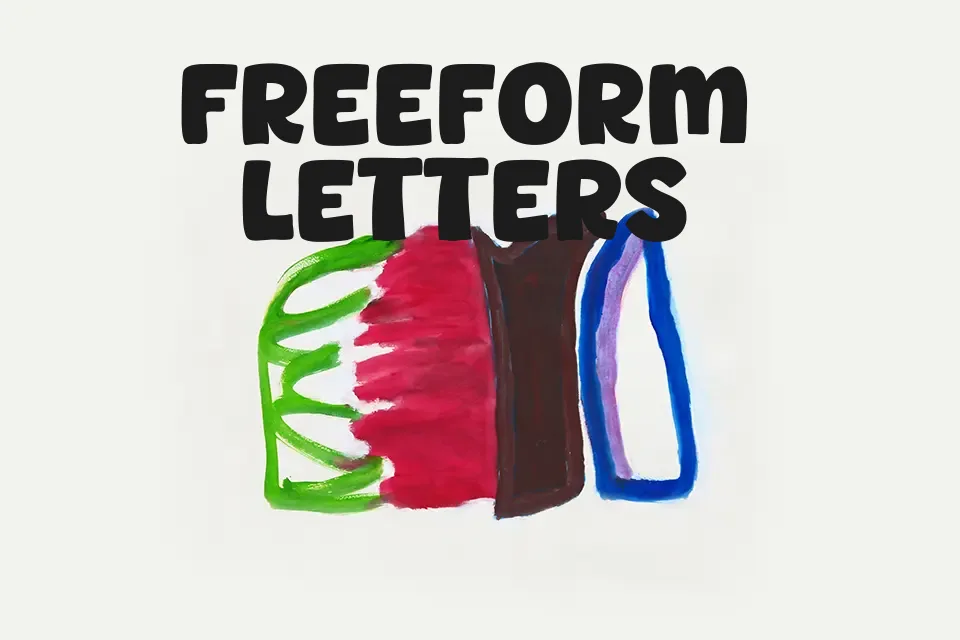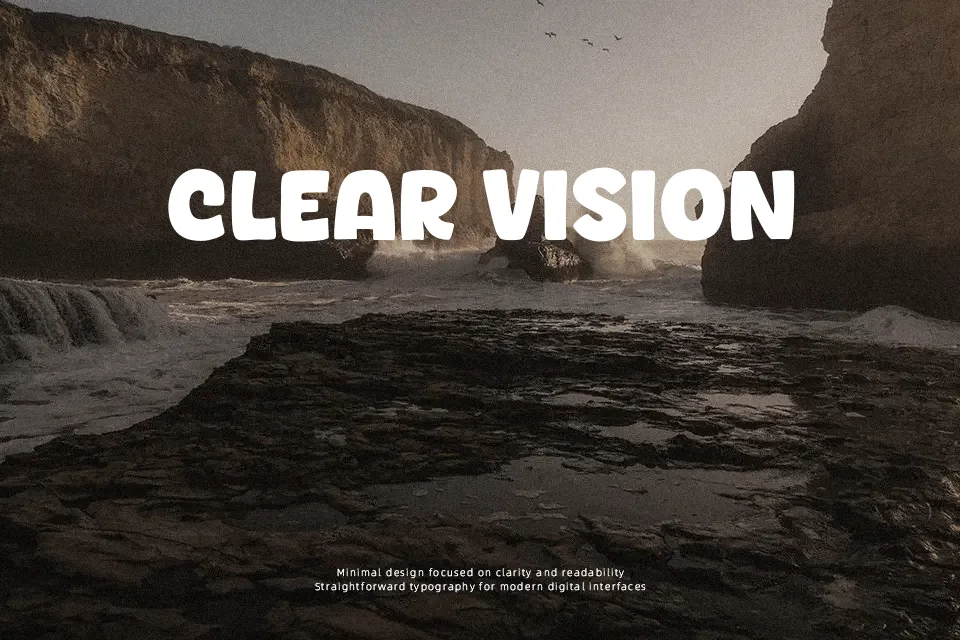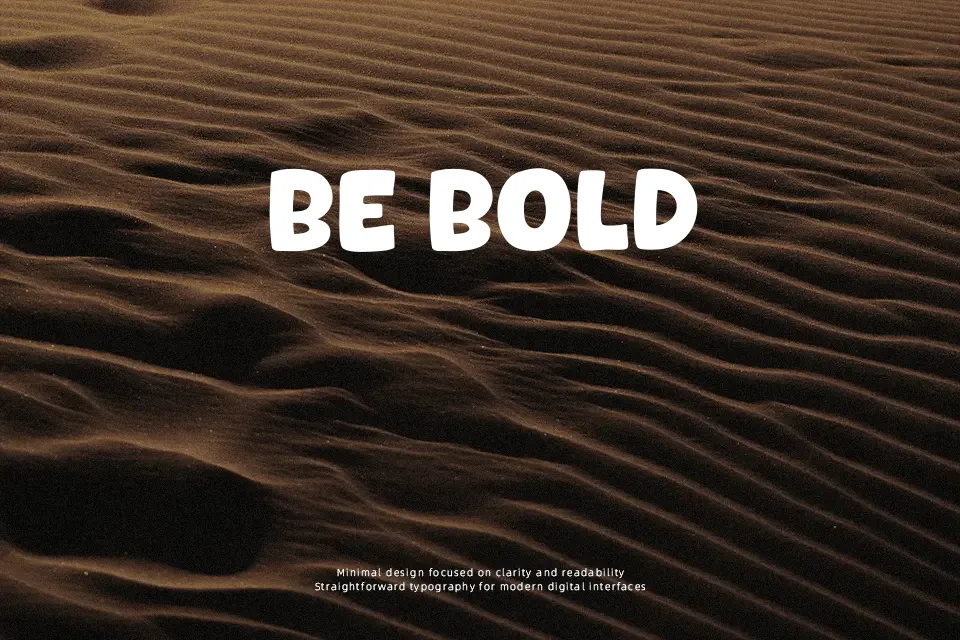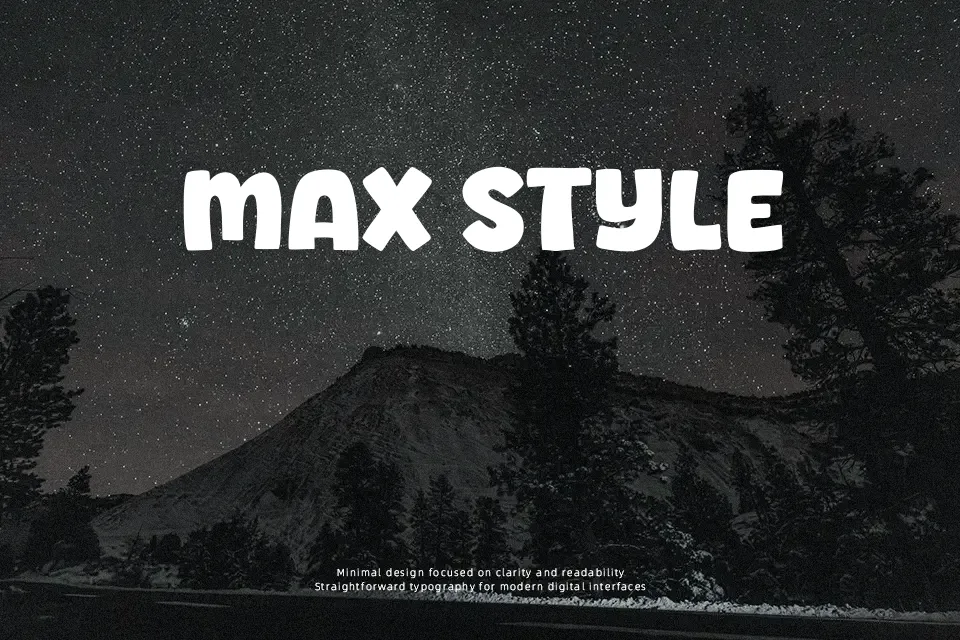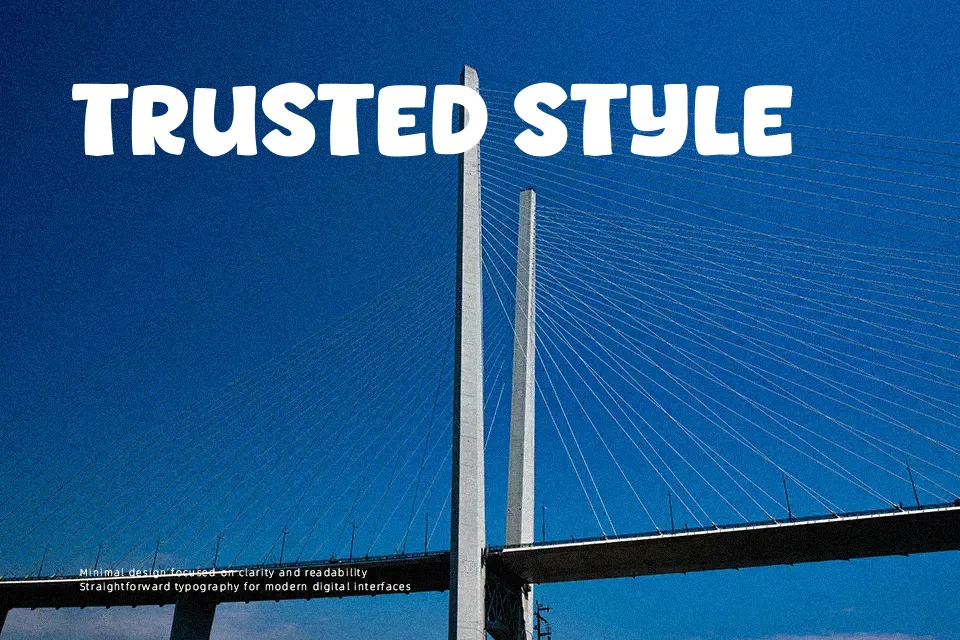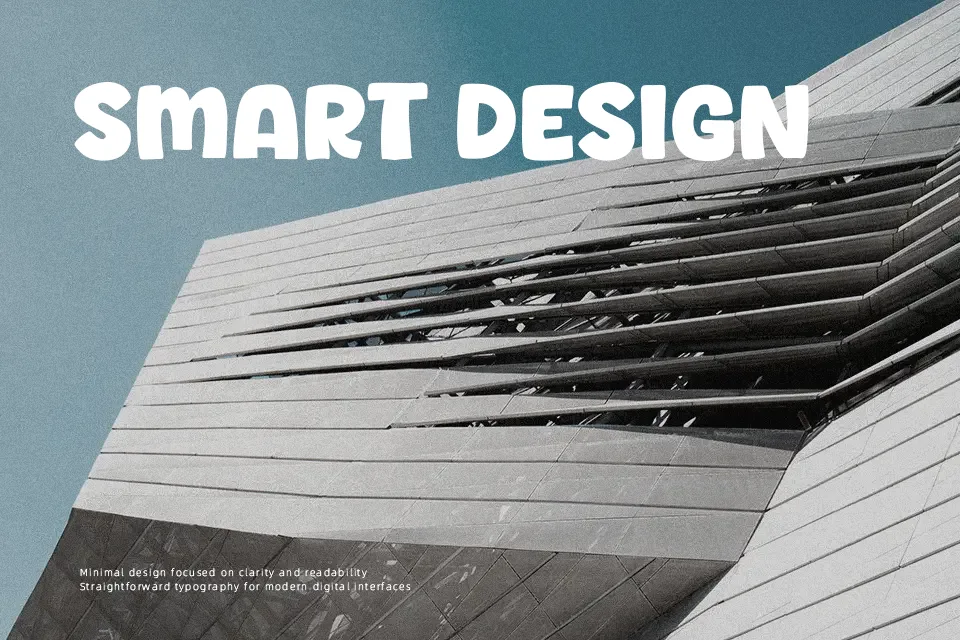
Savory Curry Font
Designed by Khurasan
Savory Curry Font stands out with its plump letterforms, thick uniform strokes, and softly rounded terminals that create a friendly visual rhythm. The generous proportions and tightly tracked characters maximize impact in display environments, making the design particularly effective for short headlines, promotional banners, and product labels. At larger sizes, the heavy weight preserves clear letter separation, though the chunky contours become less legible in extended body paragraphs or micro-sized UI labels. The typeface provides an upbeat, approachable voice that commands immediate attention in graphic applications where warmth and playful boldness are essential.
snack food packaging
restaurant menu headers
children merchandise graphics
poster display titles
technical documentation
small interface captions
Perfect for branding, headline, and packaging, with a bold and cartoon style.